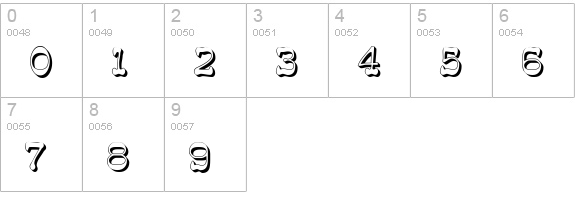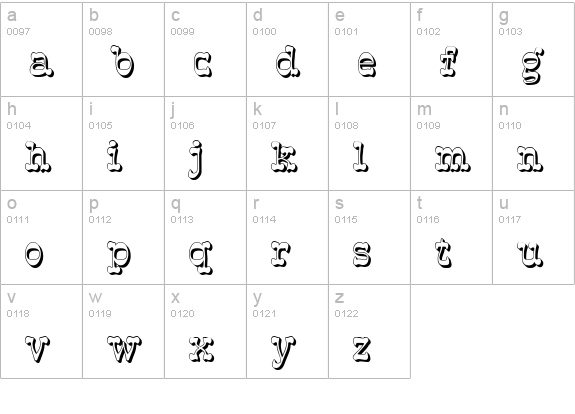
RoundUpShadow Font Details
Introducing RoundUpShadow font, a versatile and stylish typeface that adds a touch of sophistication to any design project. This unique font features rounded edges and a subtle shadow effect, creating a modern and eye-catching appearance. Perfect for logos, branding, posters, and more, RoundUpShadow font is sure to make your creations stand out. Best of all, RoundUpShadow font is available for free download at FontsMarket.com. Simply visit the website to access this fantastic font and elevate your designs to the next level. Don't miss out on the opportunity to add RoundUpShadow to your font collection today!